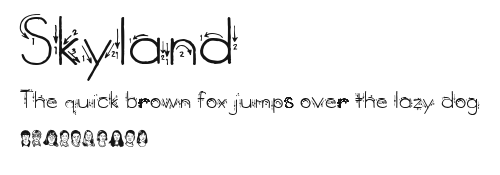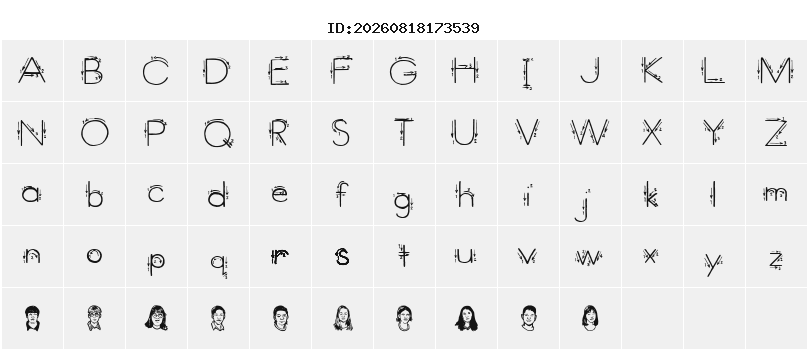
Skyland Preview
• Font Name: Skyland
• Full Font Name: Skyland
About Skyland.ttf
Skyland.ttf is a modern, elegant sans-serif font designed for ultimate readability and visual harmony. Perfect for branding, headlines, web design, and print materials.